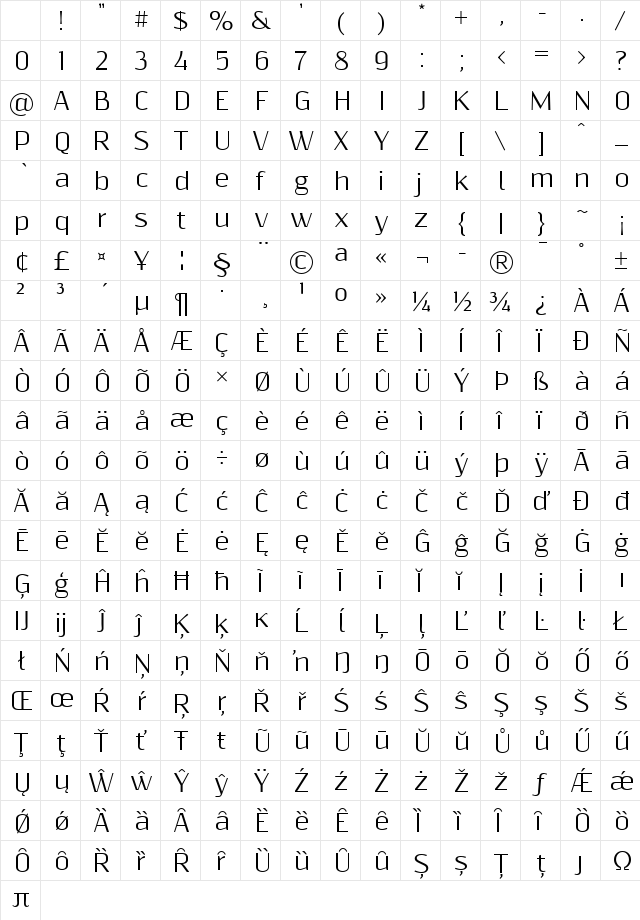
Resagnicto Regular
Design Context for Resagnicto
Resagnicto is a composed and adaptable typeface that performs quietly and consistently across a wide range of design contexts.
Pro Tip: Use Resagnicto in both headline and body roles to test its range before committing to a single application.